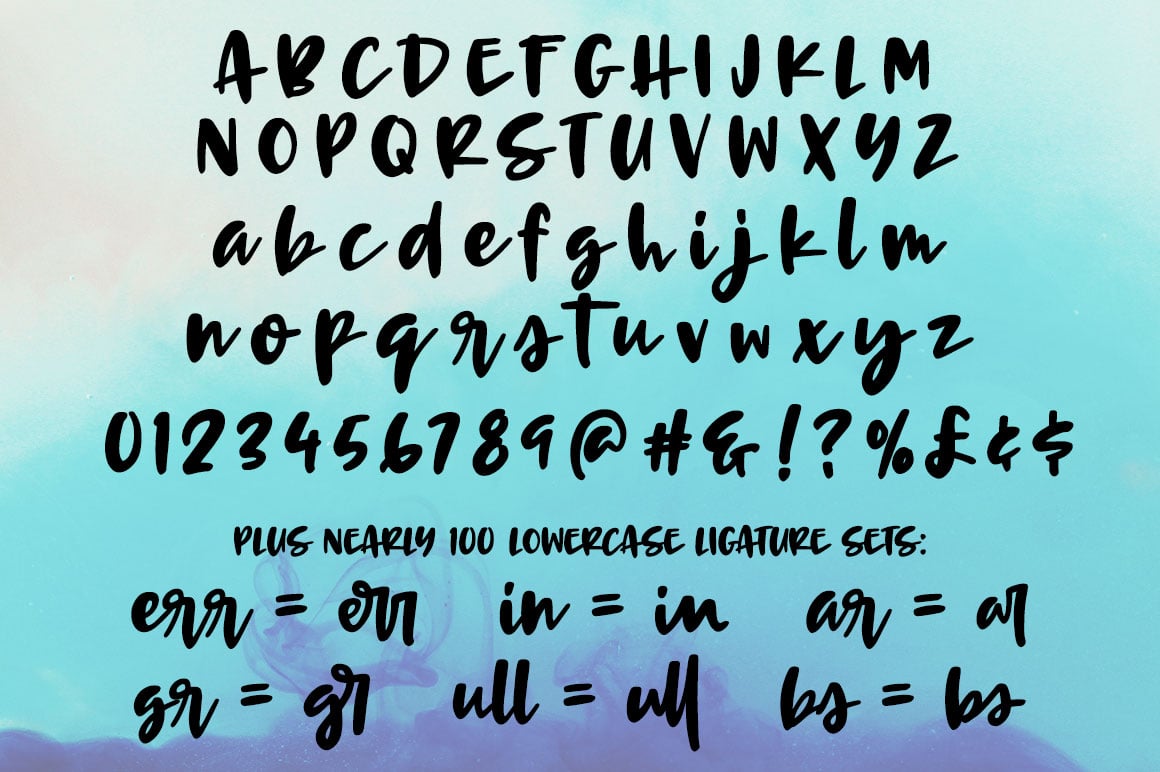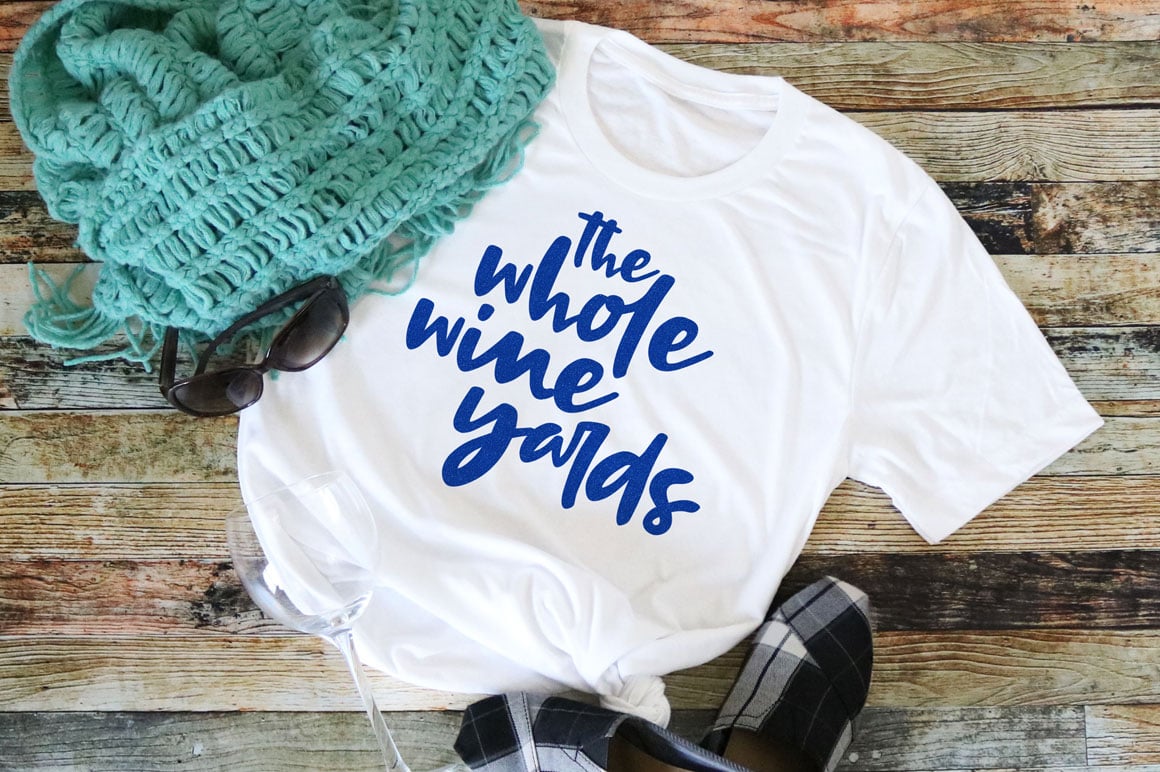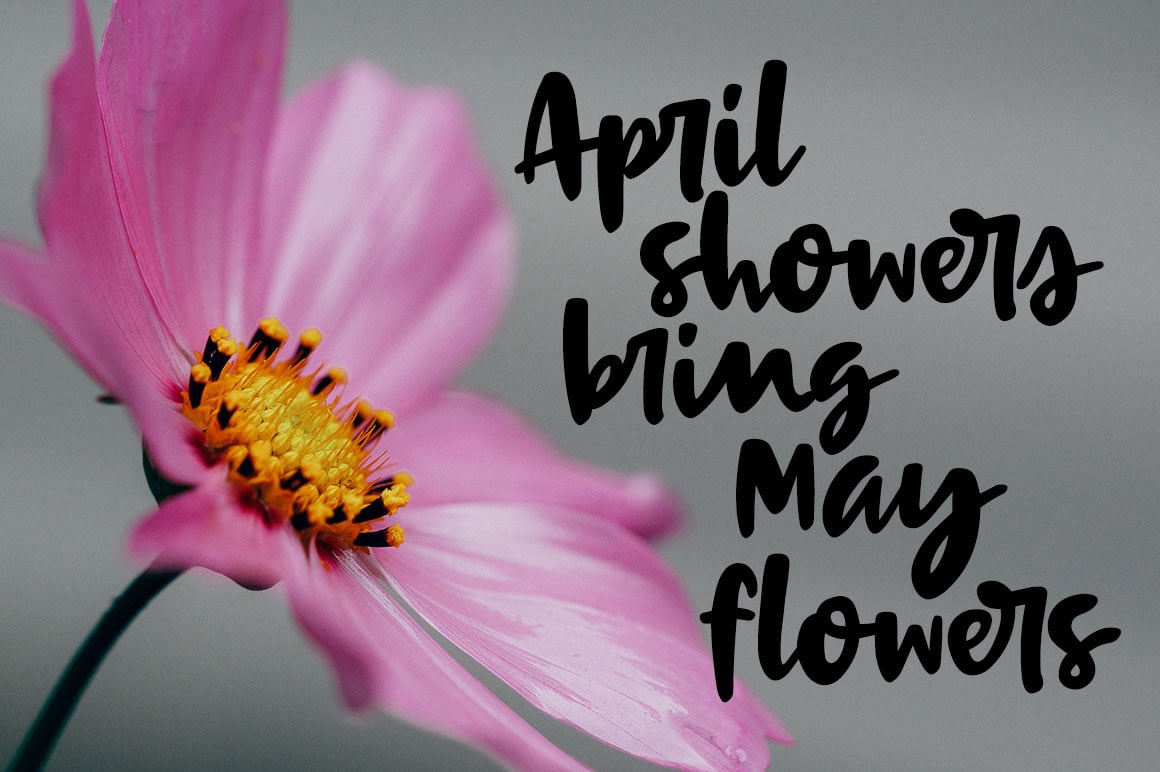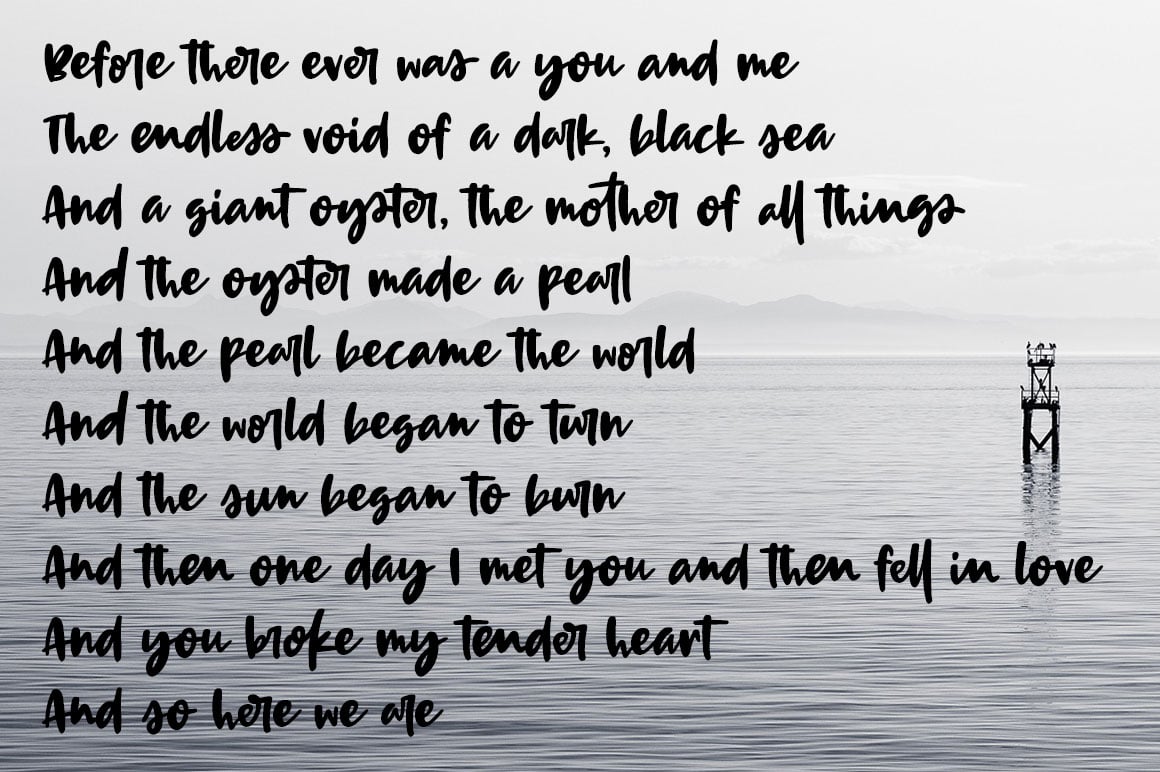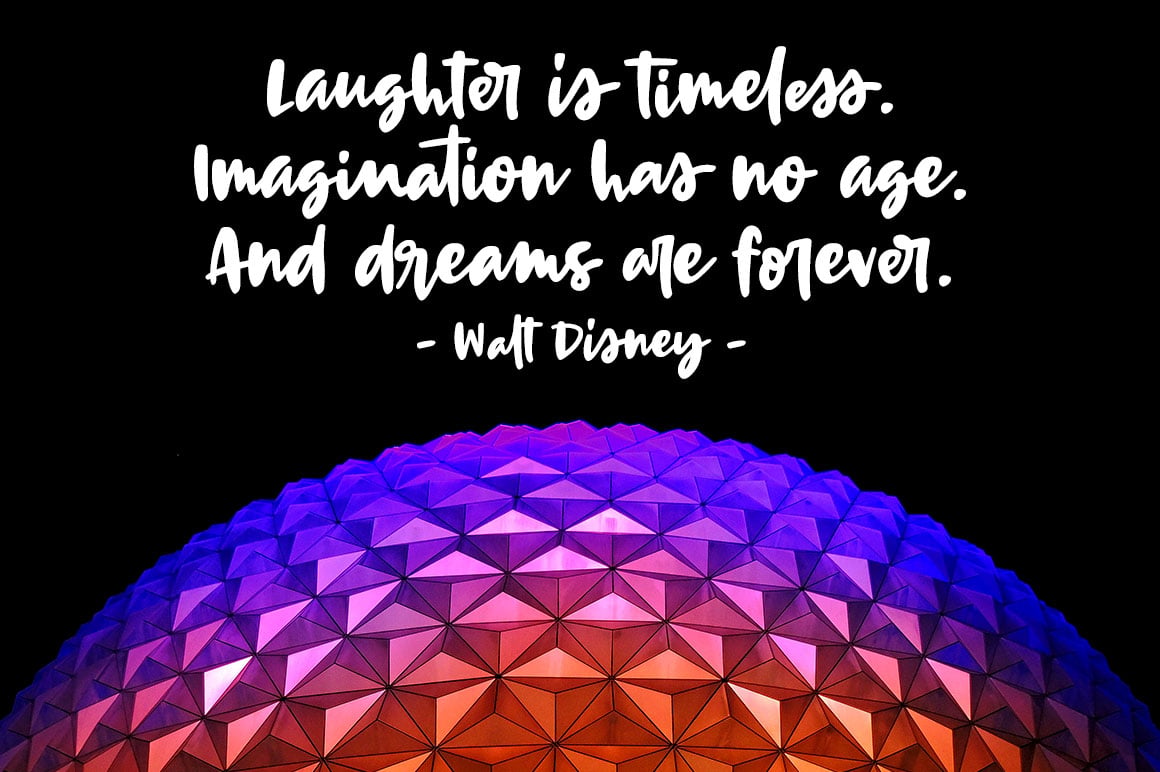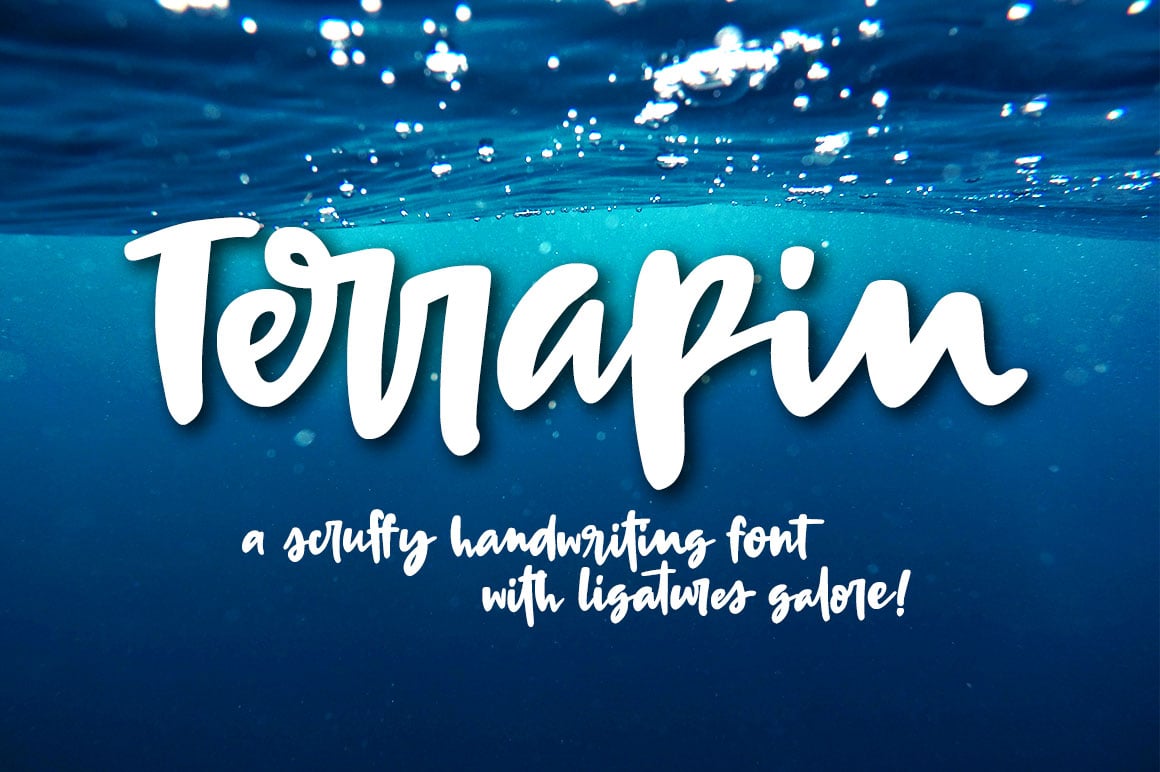
Terrapin
Say hello to Terrapin! I named this after listening to a song called "Terrapin on a Tightrope." Considering the fact that a terrapin is a kind of turtle, it makes that song title seem pretty harrowing!
This font has heavy roots in one of my favorite lettering styles. It's rough, scrappy, and likes to do its own thing. It has a full uppercase and lowercase set, numbers, punctuation, and lots of extended Latin characters for language support. It also includes alternate versions of 17 lowercase letters.
Where Terrapin really shines is in the ligatures. I've written separate two- and three-letter combined forms for some of the most common letter combinations, and a few uncommon ones to boot. There are almost 100 ligatures in here, all PUA-encoded so everyone can access them (and also coded so if your software does automatic ligature replacement, they'll pop right in).
Terrapin features:
- 60 Latin-1 extended characters for language support
- 16 diacricital marks to create even more extended language characters
- 17 lowercase letter alternates
- 94 multi-letter ligatures